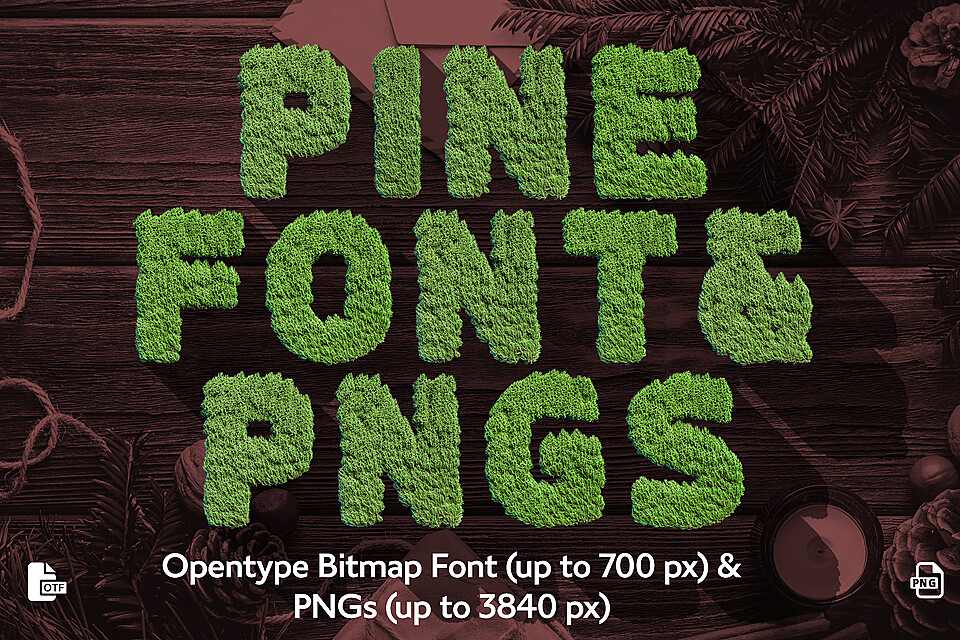
MS Pine Bitmap Font & PNGs
** MS Pine Opentype SVG Color Bitmap Font & PNGs **
Each letter is modelled and rendered in a 3D Application, also converted into an Opentype SVG (Color Font) - Basic western uppercase letters - Basic Punctuation and Symbols - Numbers - Clean Transparent PNGs (Up to 3840x3840px) - The package contains 54 Separate PNGs and 1 OTF (OpenType SVG - Color Font) file.